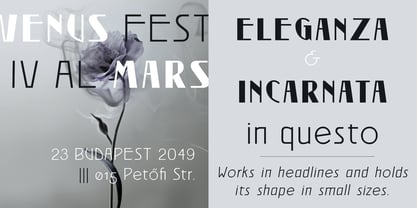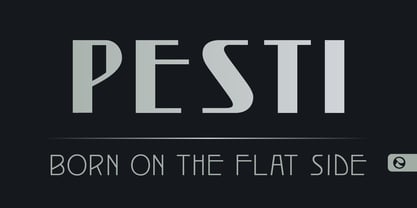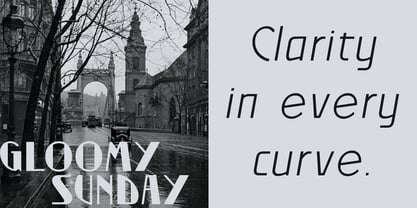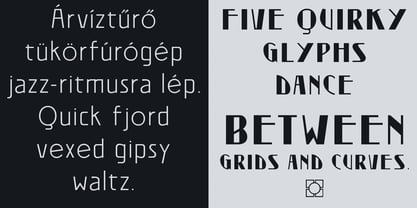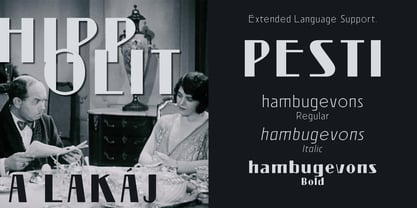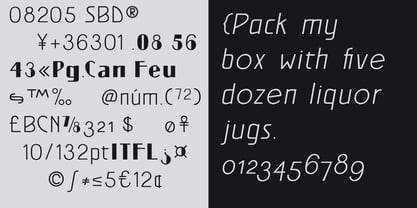
Pesti
Die Schriftfamilie Pesti wurde von Amondó Szegi entworfen und von Monovo veröffentlicht. Pesti enthält 2 Stile. Mehr über diese Familie
PESTI is a geometric sans-serif family in 3 styles — Regular, Italic, and Bold — built for editorial work, cultural branding, and fashion typography.
Sourced from a 1901 Budapest specimen book, where a geometric sans appeared under the name Isis — at the height of Egyptology fever and Jugendstil elegance. The letterforms survived both. Clean geometry. Confident proportions. The quiet modernism of a city inventing itself.
PESTI redraws that source for today. Not a revival — a conversation. The Bold style carries the monumental weight of Art Deco Budapest. The Regular and Italic bring the same DNA into contemporary work.
Geometry doesn't age. It just finds new addresses.
Designer: Amondó Szegi
Foundry: Monovo